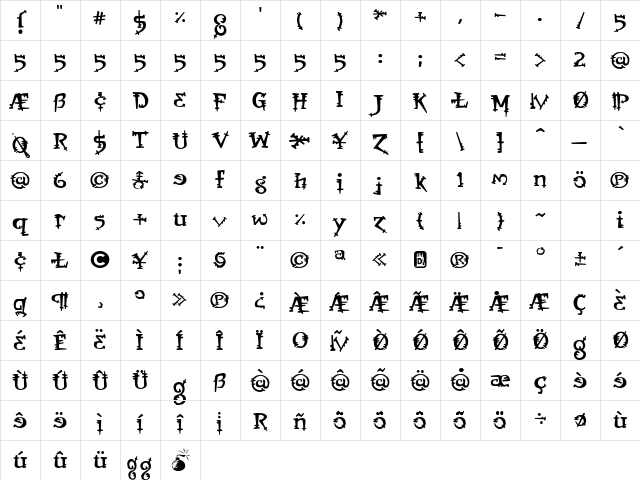
Orbus Bjorkus Free Font
Orbus Bjorkus
Style: Bjorkus
Orbus Family
Orbus Bjorkus
Design Context for Orbus
Orbus is a composed and adaptable typeface that performs quietly and consistently across a wide range of design contexts.